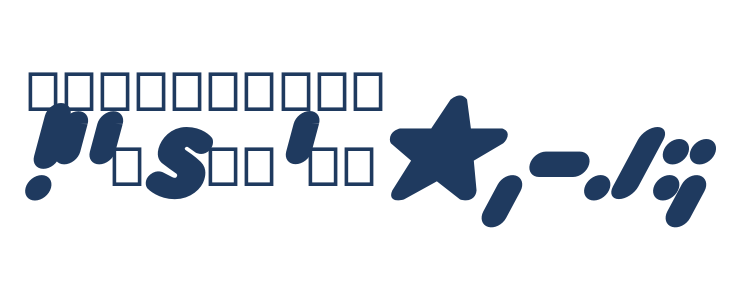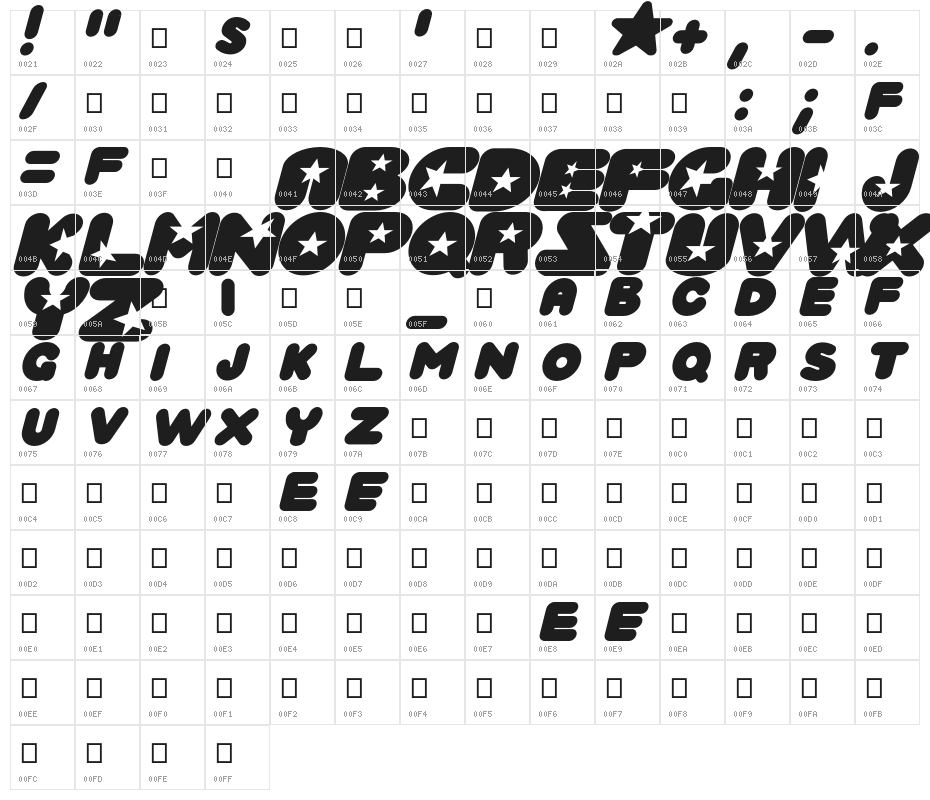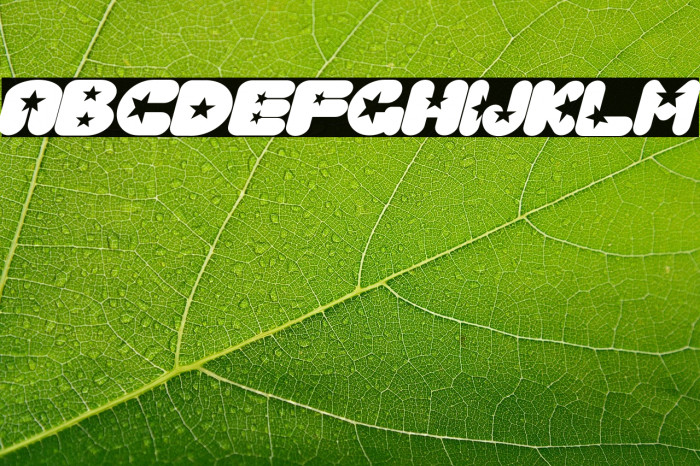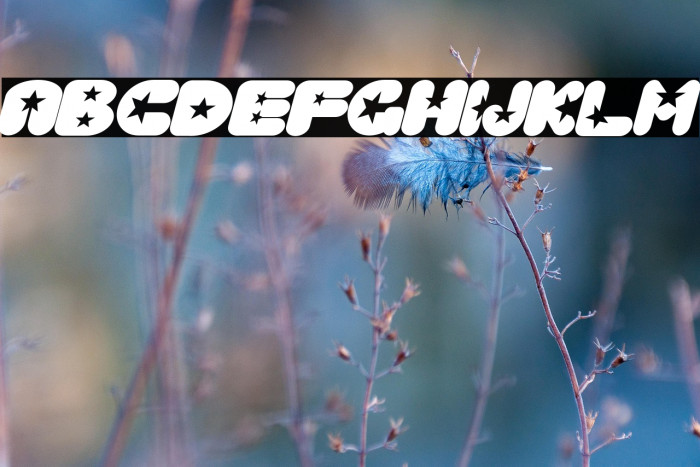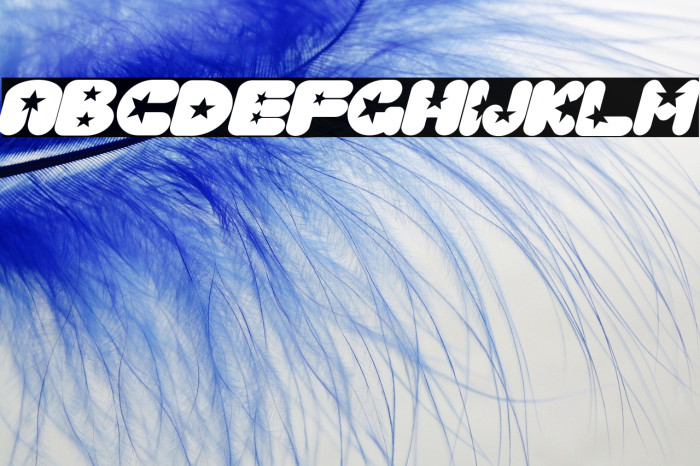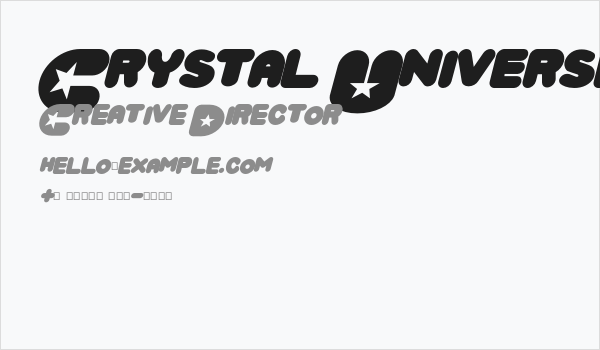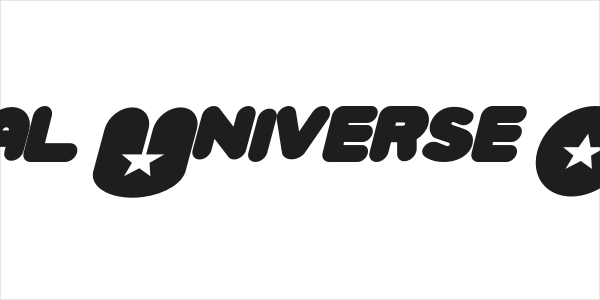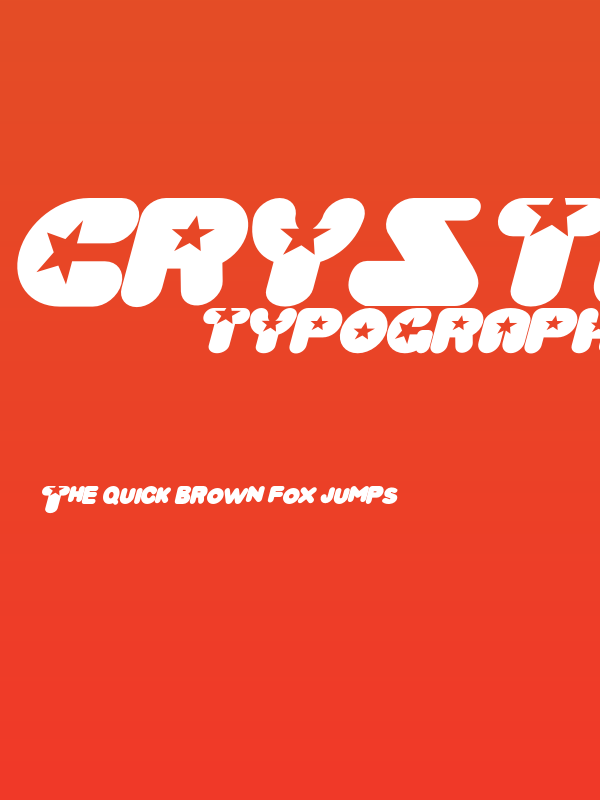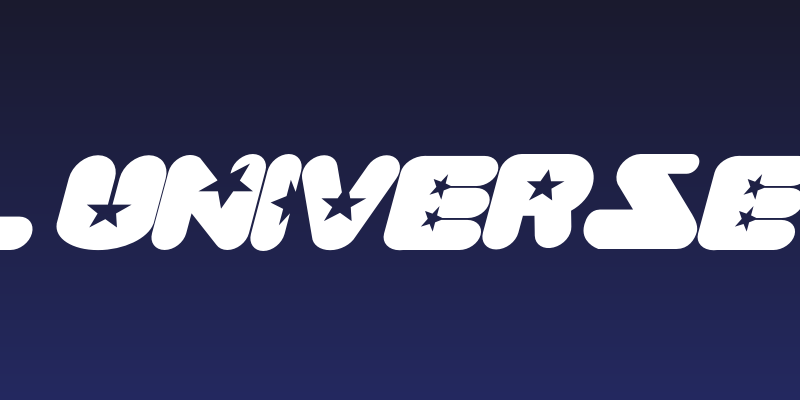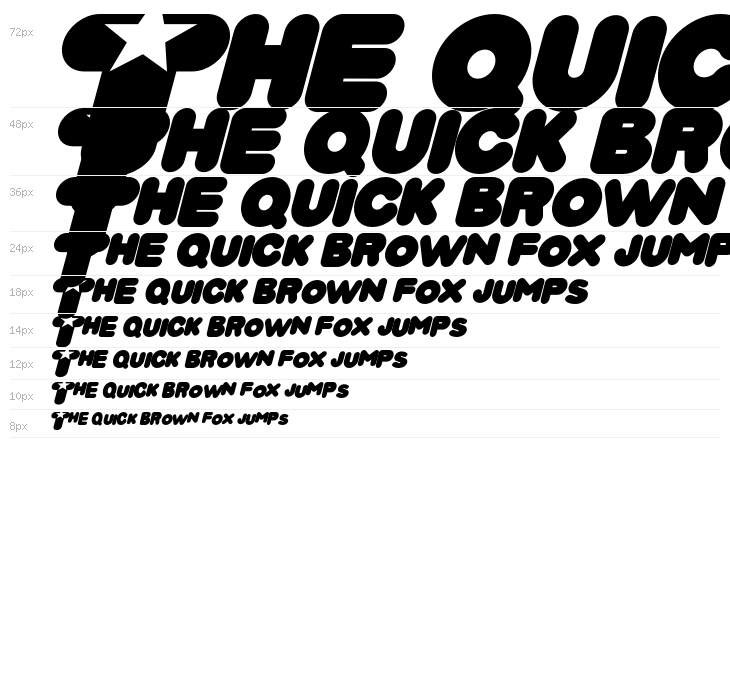
Crystal Universe Oblique Font
Crystal Universe Oblique Description
This font features a bold and playful design with a unique star motif embedded within each character, creating a whimsical and eye-catching effect. The letters are rounded and thick, giving a sense of fullness and presence. The style is distinctly decorative, making it ideal for creative and fun projects. The uppercase letters are particularly striking, with each character maintaining a consistent weight and width, ensuring uniformity across the text. The font's playful nature is further emphasized by its smooth curves and the integration of star shapes, which add a touch of fantasy and imagination.
| Proposed Projects | Ideal for children's books, party invitations, posters, and any project requiring a fun and whimsical touch. |